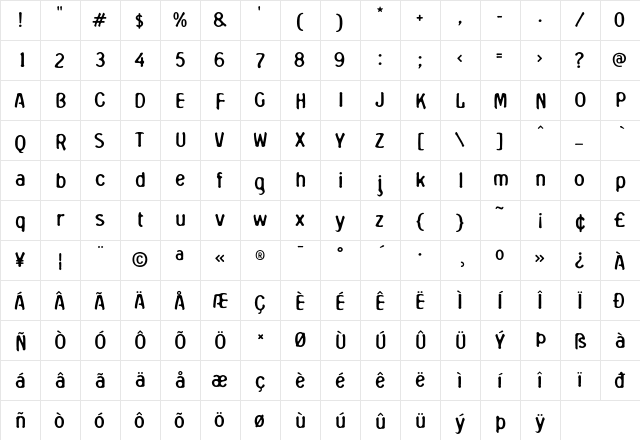
Oculus BGauge
Design Context for Oculus Typeface
Oculus takes a measured approach to typography — its balanced proportions and neutral character make it a reliable workhorse for both digital and print work.